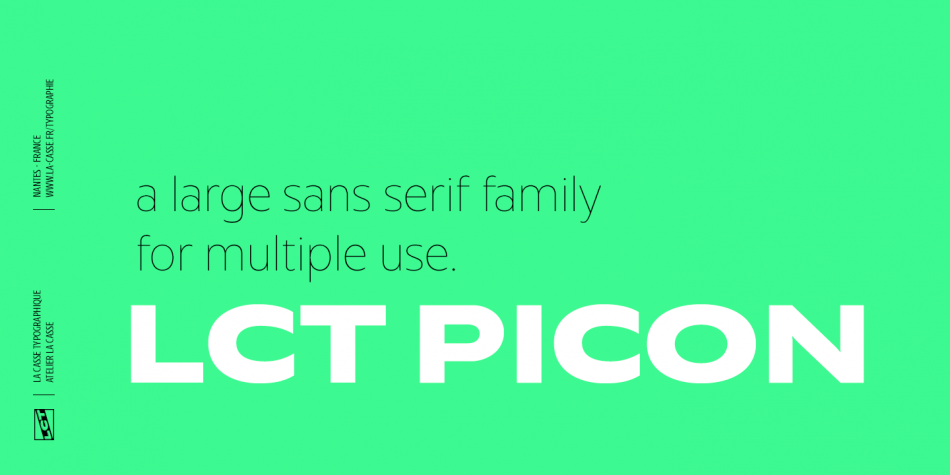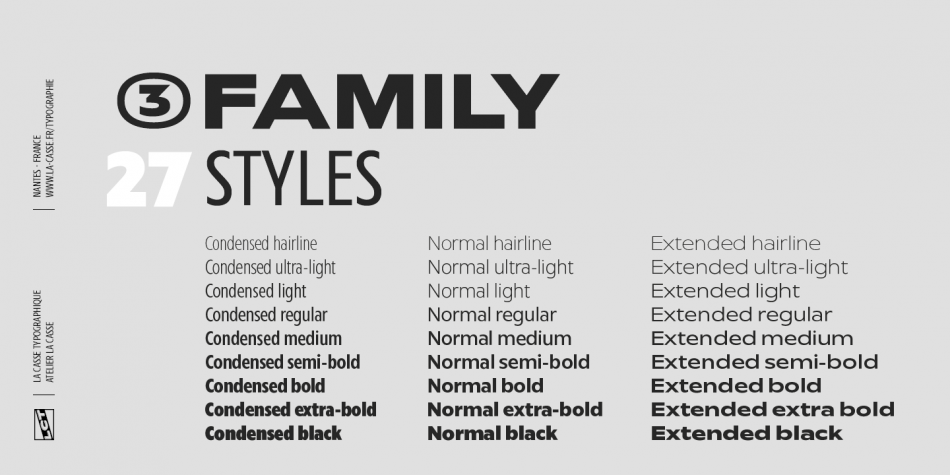
Designed by Quentin J. Stavinsky, LCT Picon is a sans serif font family. This typeface has twenty-seven styles and was published by La Casse Typographique.
LCT Picon is a big modern sans serif family suitable for many uses.